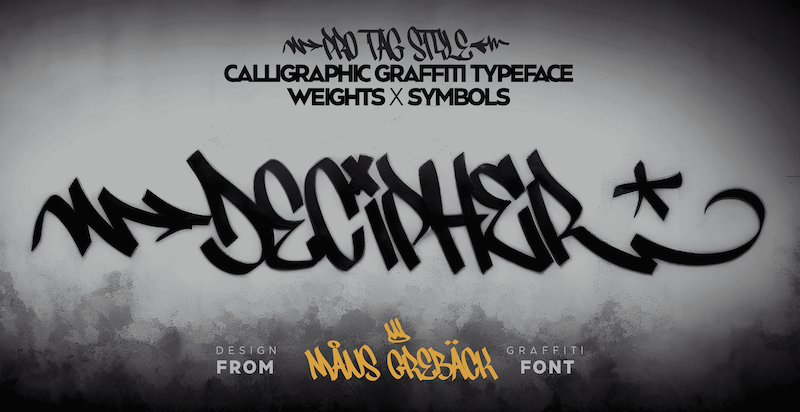
Preview and download Decipher Font. Created by Måns Grebäck in Script Graffiti styles with Free for personal use license.
NOTE: This font is for PERSONAL USE ONLY! To purchase a commercial license, visit: http://mn.sg/decipher Decipher, designed by Mans Greback, is an edgy graffiti-inspired font that captures the essence of street art and hip-hop culture. With its cool, calligraphic and marker-style handwriting, Decipher brings the energy and speed of urban life into your designs. The Symbols style is a unique addition, offering a variety of tag elements such as swashes, arrows, stars, and crowns to enhance your designs further and unleash your creativity. For questions, please visit www.mansgreback.com/faq |